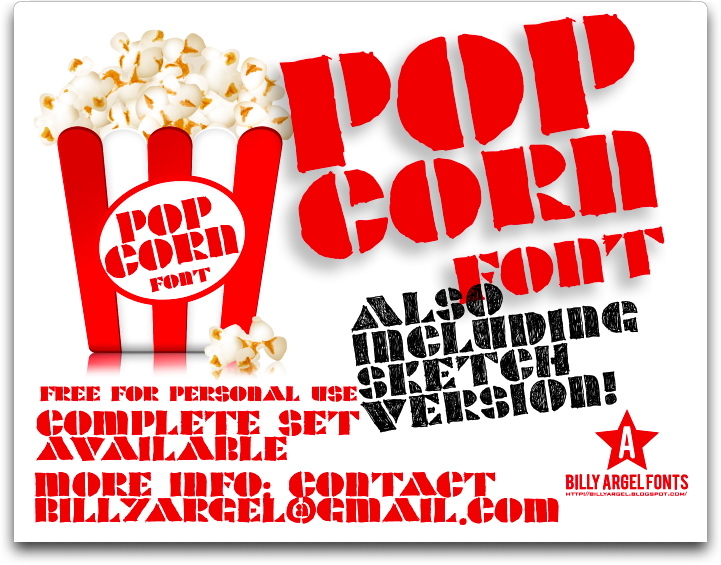
Popcorn by Billy Argel is a free retro decorative display font with broad, roughly cut letterforms. Its uneven edges and abrupt interior gaps resemble shapes sliced from paper or painted through improvised stencils. Alternating narrow and wide forms create a lively, poster-like cadence.
It is convincing on music posters, festival graphics, and record packaging, where the silhouettes support a handmade vintage look. For apparel and food branding, the cut-paper quality can become part of the collage or label artwork.